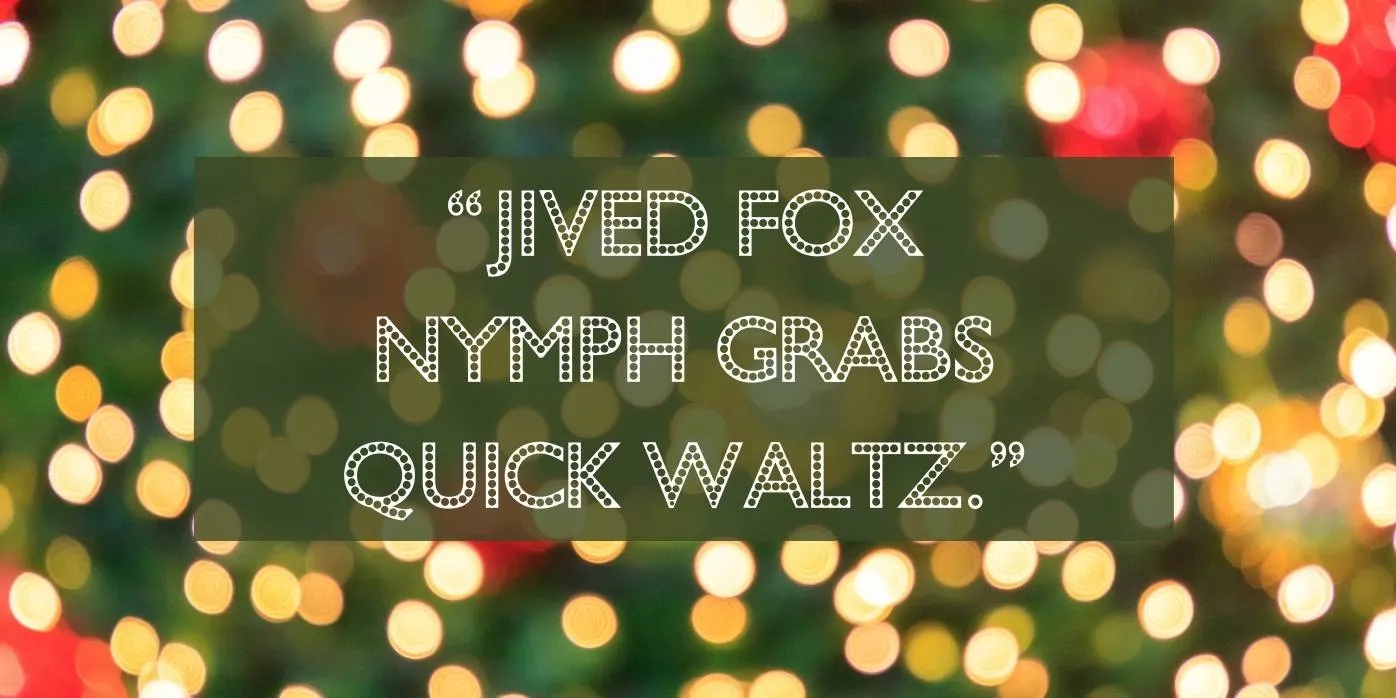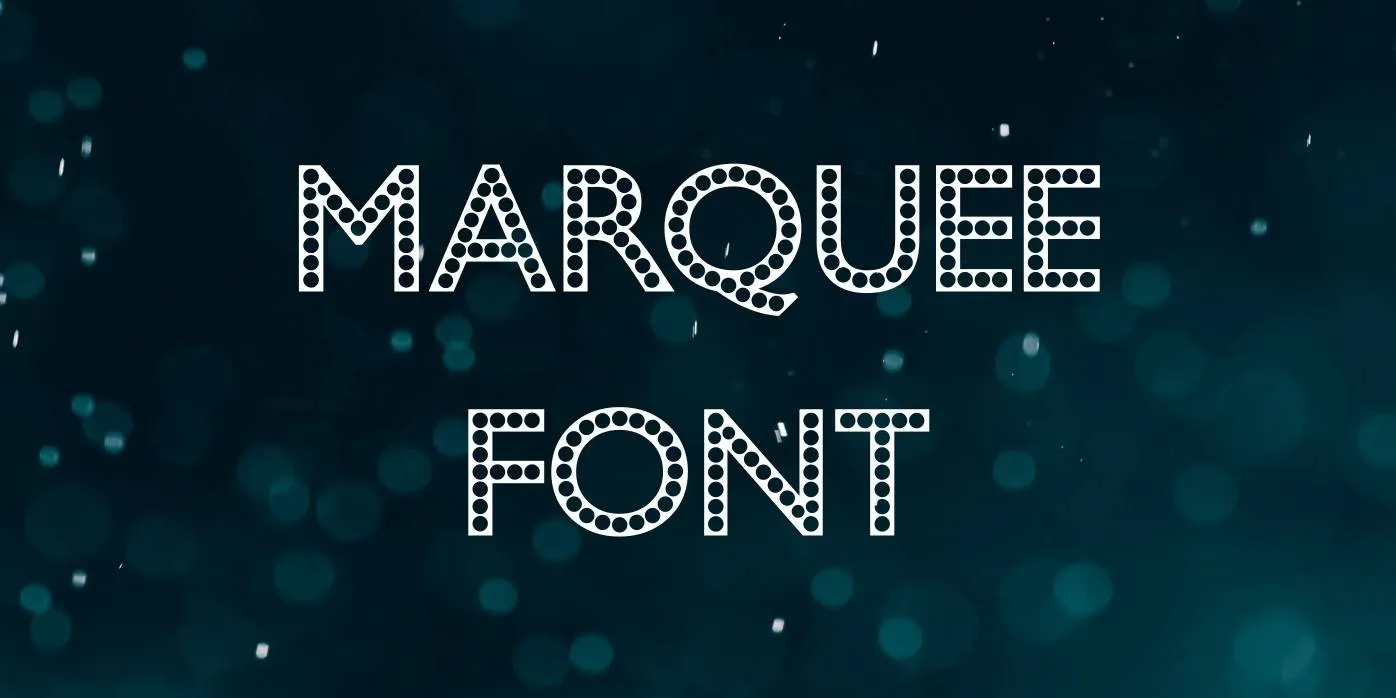
Marquee Font
Marquee Font was developed and published by Daniel Pelavin in the year 2010. This amazing typeface belongs to the Display typeface.  It comes with uppercase and lowercase letters, numerals, punctuation marks, and international characters. It is best suited for Headlines, and Advertisement purposes. The font has a very unique look and feels to it.
It is available in various styles almost all perfect for designs purposes. The font family has a retro feel to it, which will work great for your projects. This classy font is often used in advertising to create an eye-catching effect. Its online tool generator is very attractive for different classic designs.